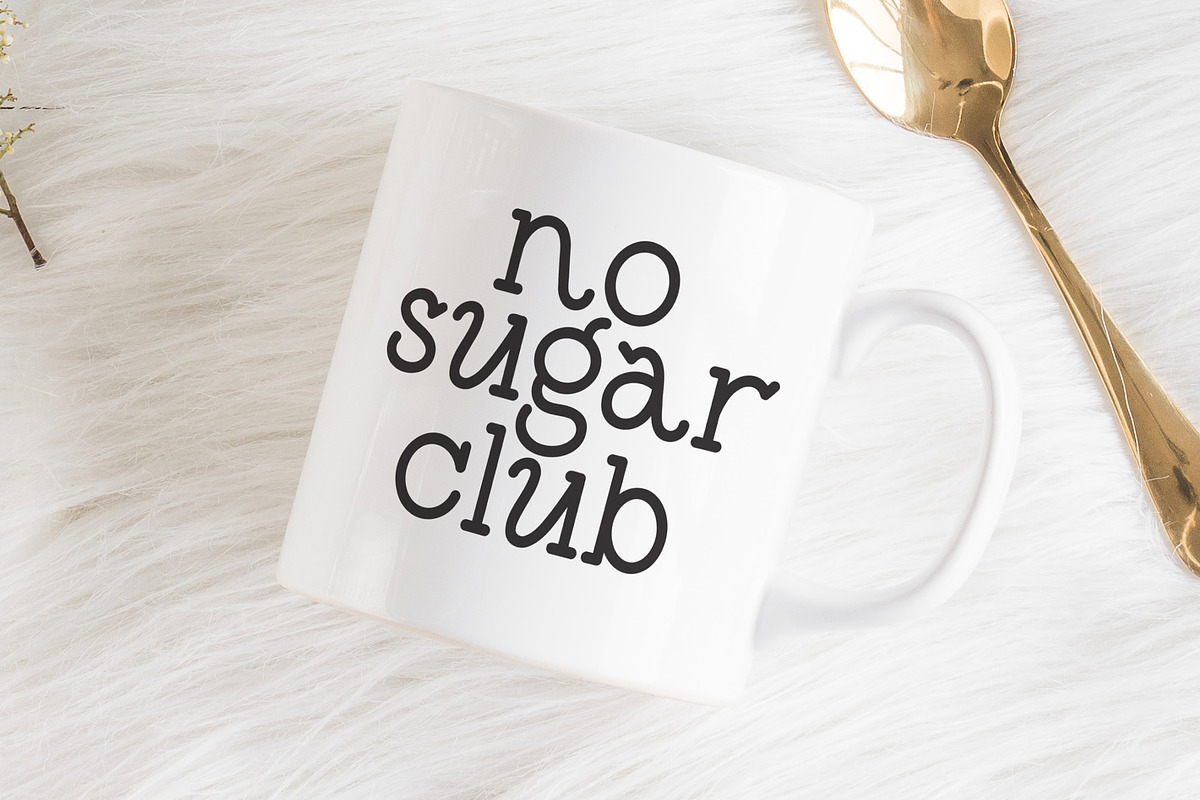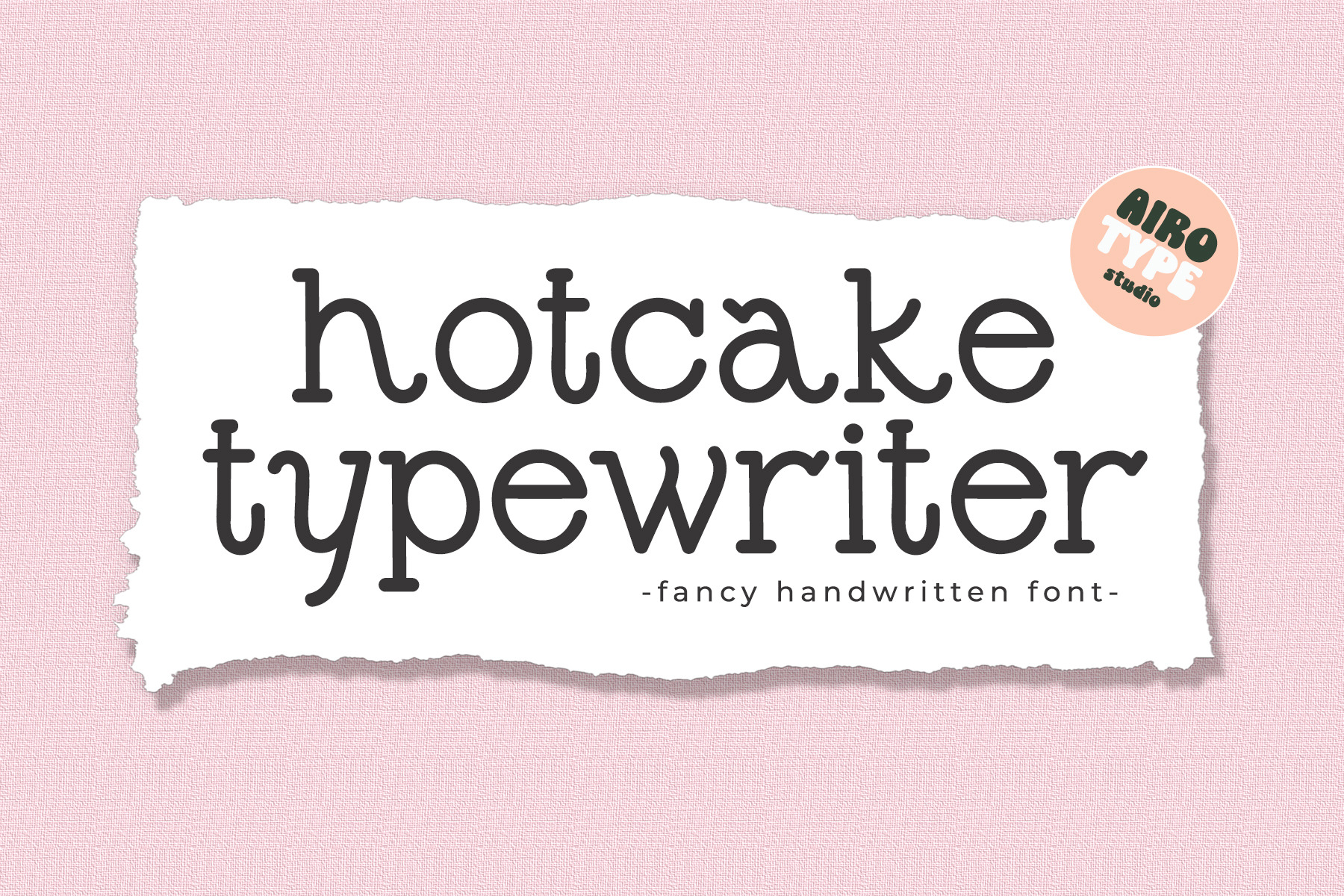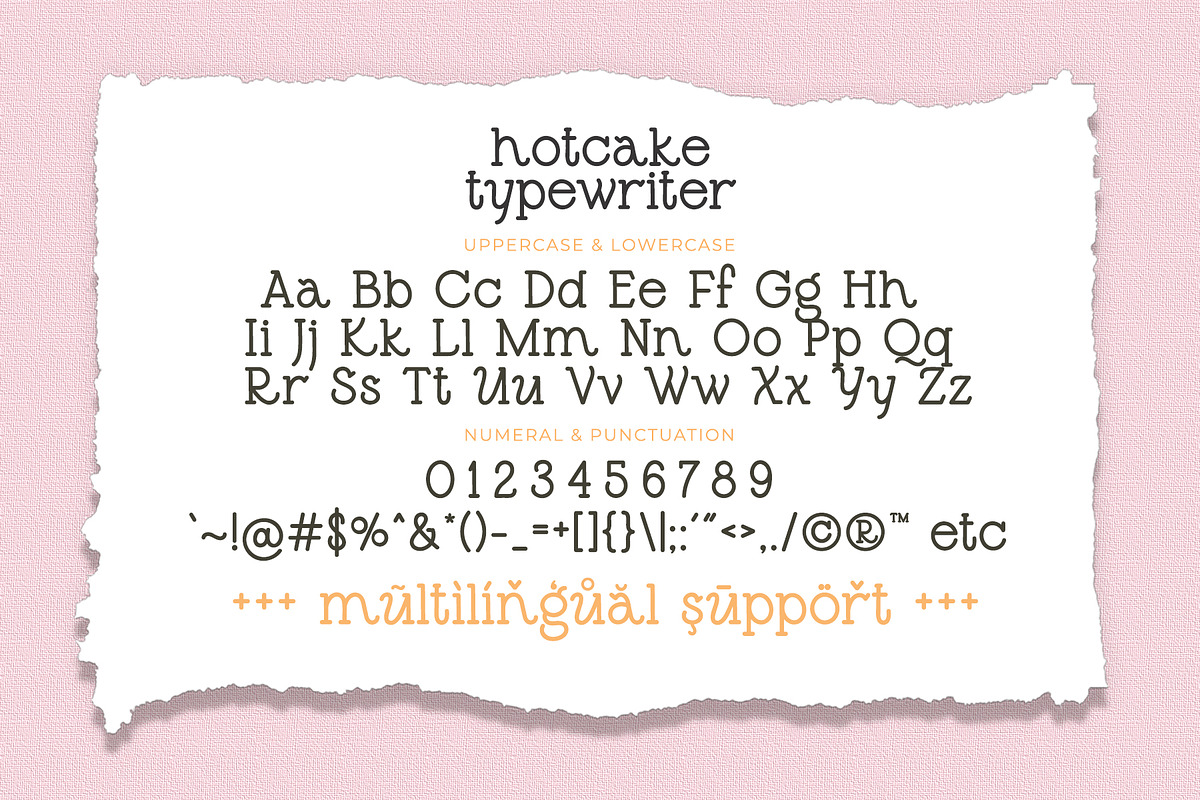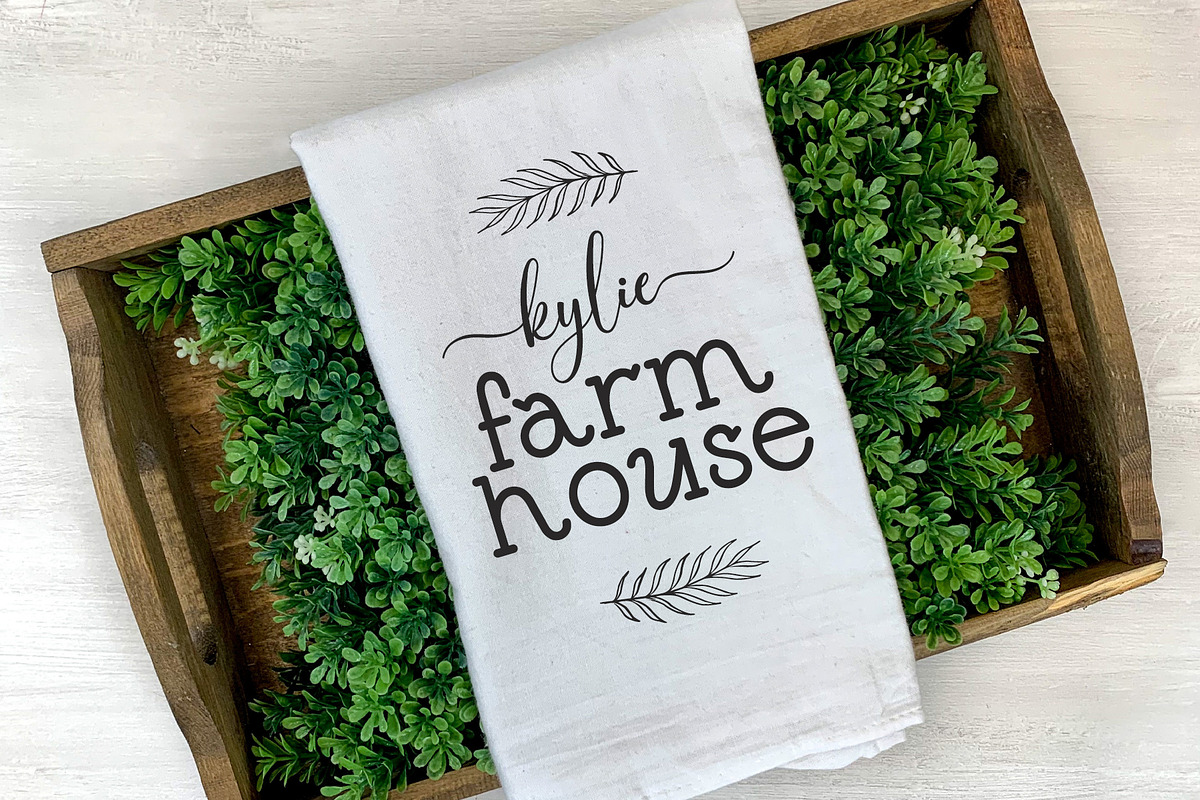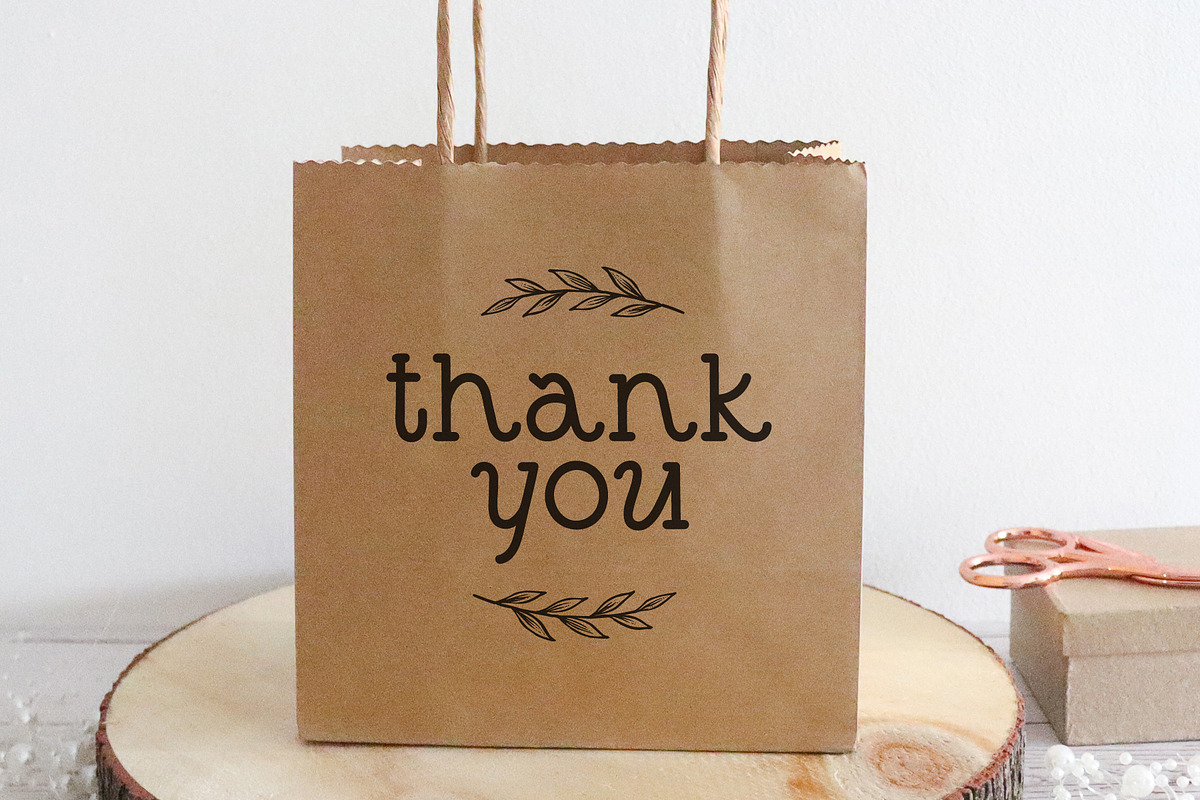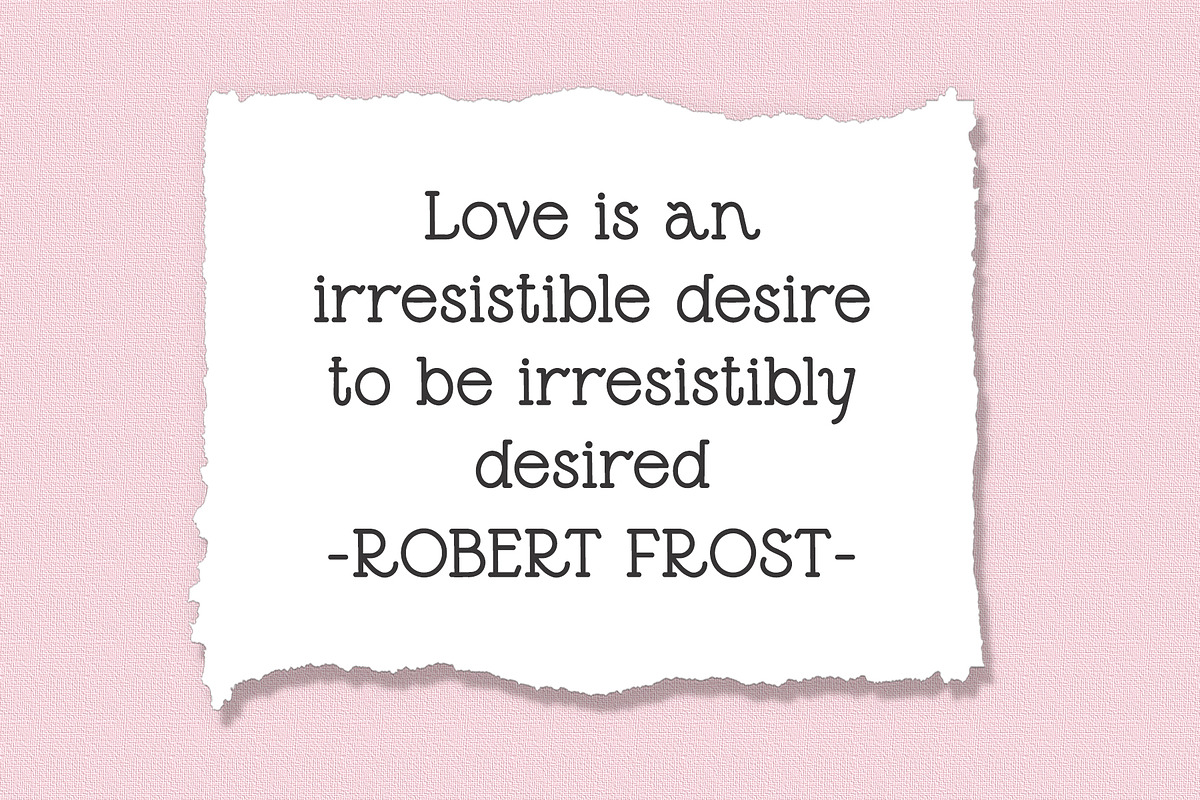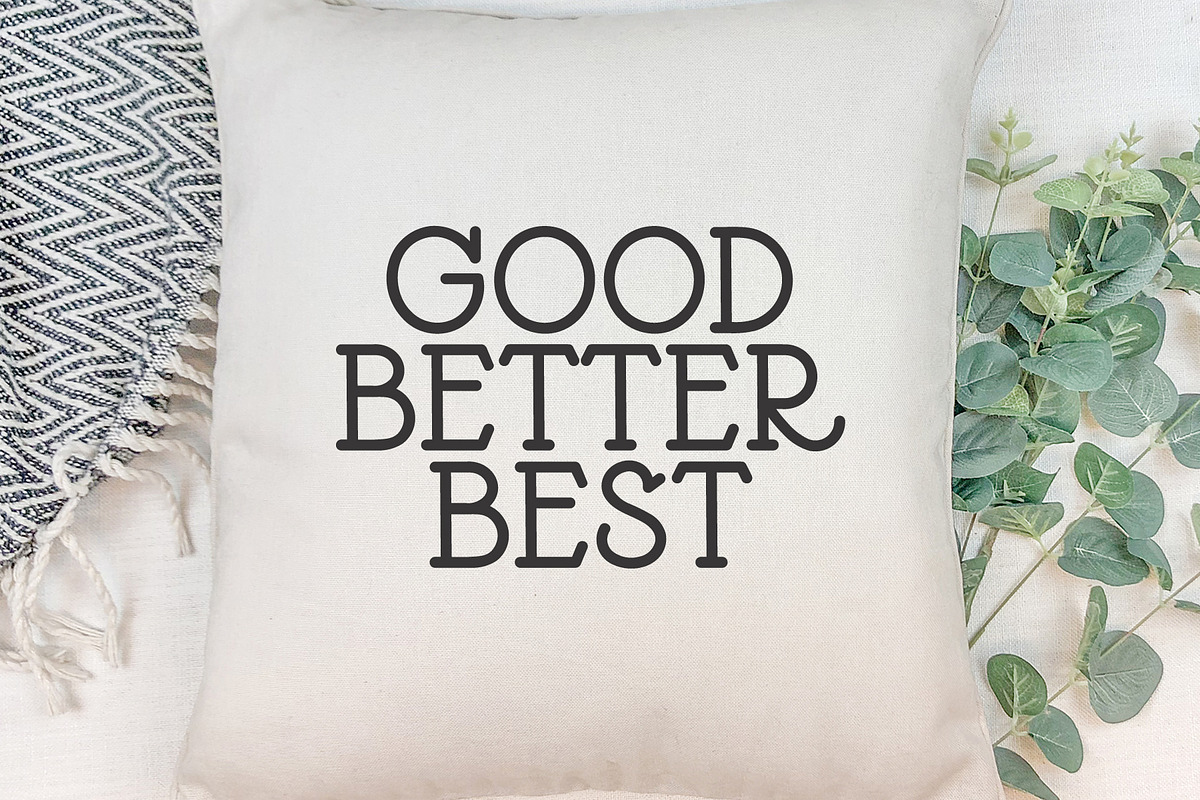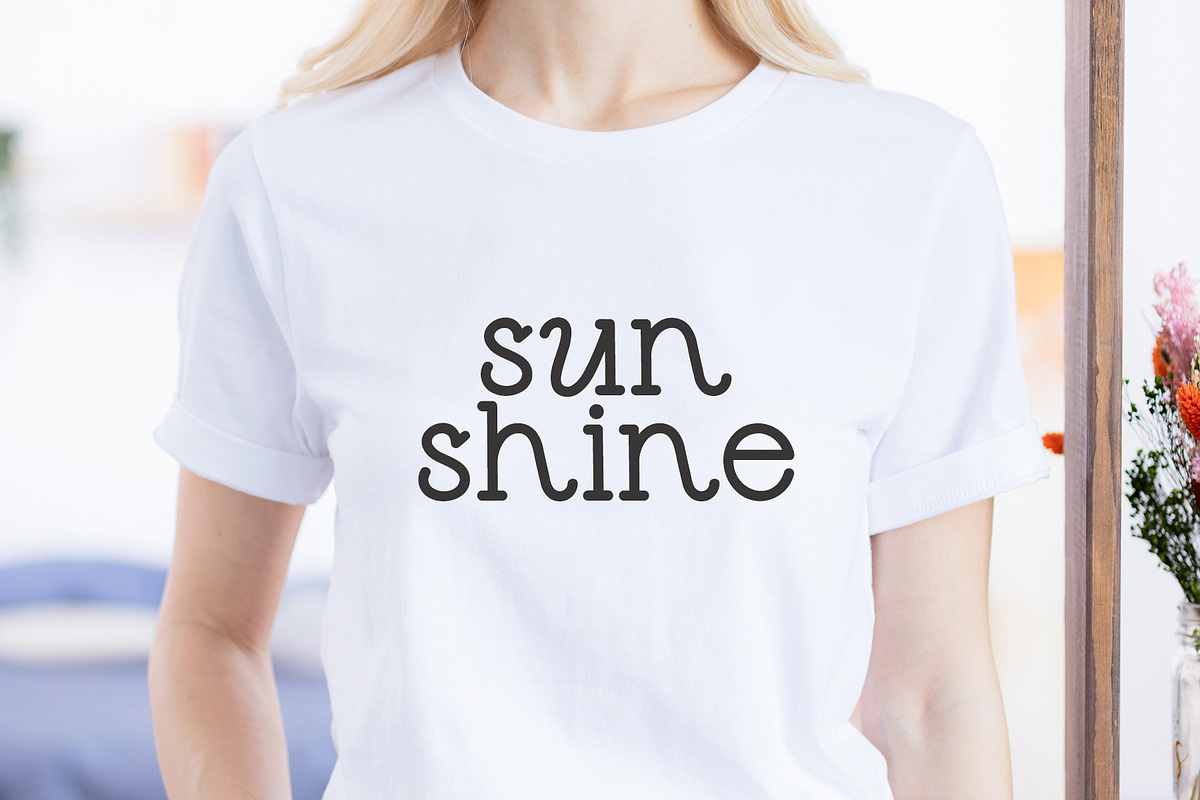
Hotcake Typewriter - Monoline Font
Hotcake Typewriter is monoline font with cute and vintage vibes. This is fun, casual, and quirky.
Hotcake Typewriter is pretty font for any projects, such as t-shirt design, crafting, sticker, notes, sublimation, and many more.
- Most Multilingual Accent